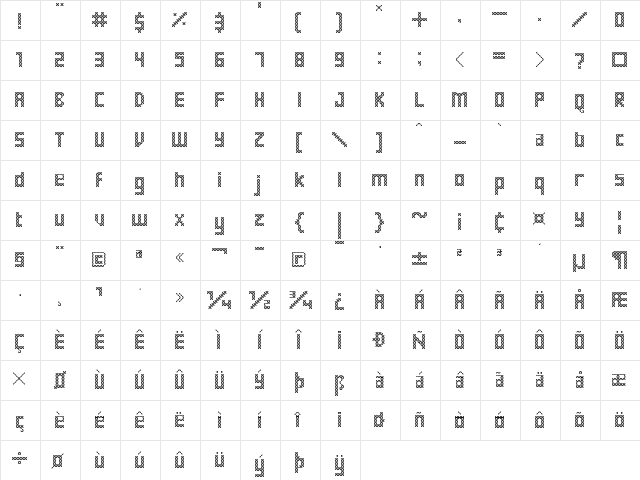
Eenvoudige Batik Regular Free Font
Eenvoudige Batik Regular
Designer: Adien Gunarta
Complete Eenvoudige Batik Regular glyph index. Displaying only characters natively supported by Eenvoudige Batik Regular font.
Design Context for Eenvoudige Batik
Eenvoudige Batik is a composed and adaptable typeface that performs quietly and consistently across a wide range of design contexts.